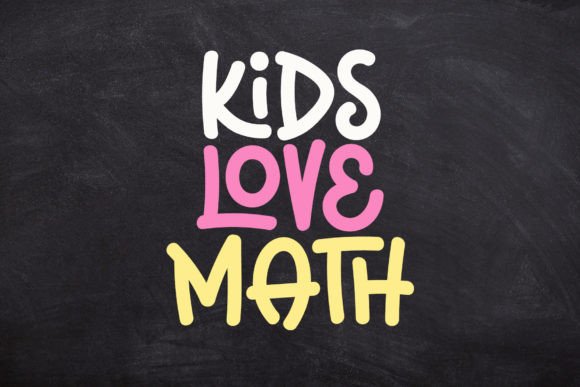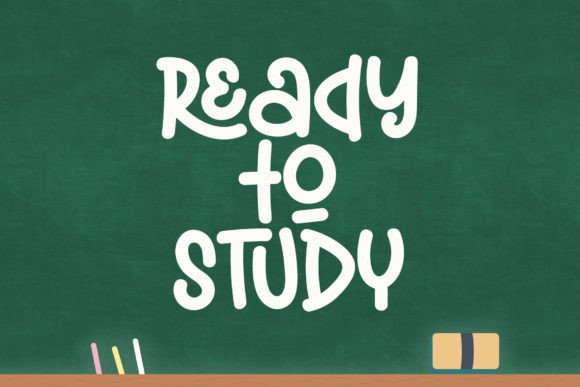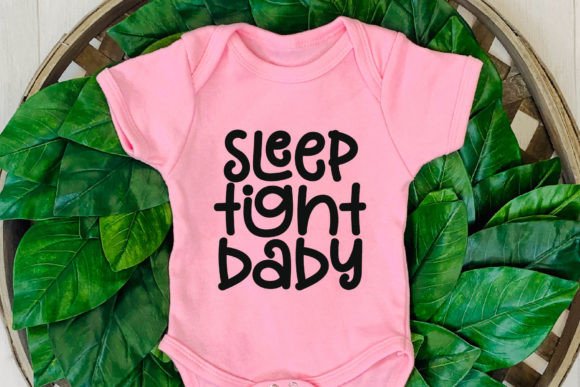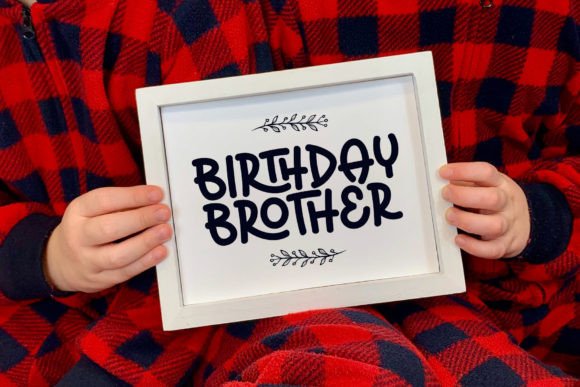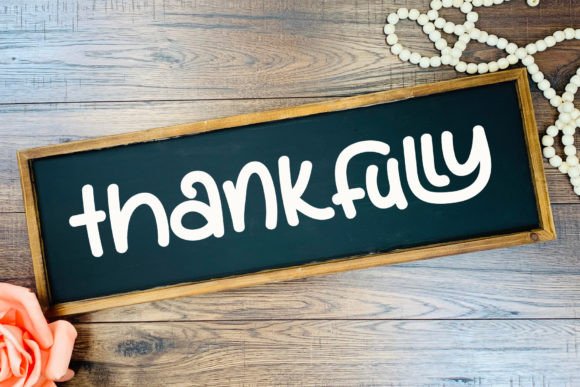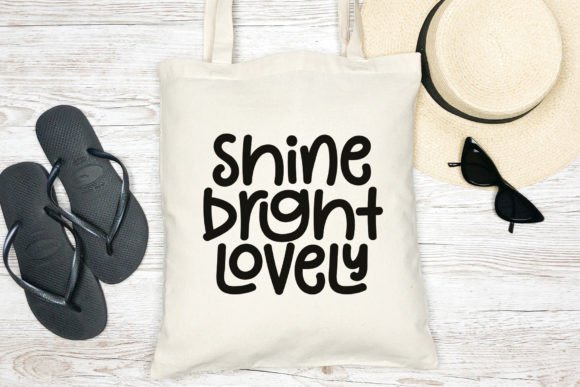
Introduction to High School Club Font
High School Club is cute and fun handwriting font.
It is whimsical, pretty, and playful It has lots of ligatures for uppercase and lowercase to give more options in designing.